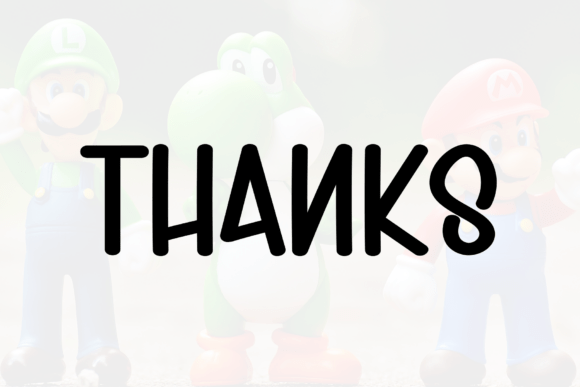
Introduction to Ladder Font
As you sit in front of your computer, staring at a blank canvas, the creative wheels start turning. You envision a beautiful, whimsical design that will transport your audience to a world of wonder. But, what’s missing is that perfect font to bring your vision to life. That’s where the Ladder Font comes in – a sweet and beautiful handwritten font that’s sure to add a cozy accent to any design project you wish to create.
With its unique, high-quality design, the Ladder Font is a valuable resource for designers looking to add a personal touch to their work. Whether you’re working on a free download or a paid design project, this font is sure to elevate your design and make it stand out from the crowd. Its transparent background and elegant characters make it a versatile design resource that can be used in a variety of creative projects.
Ladder Font
- High-quality font with a unique, creative design perfect for various projects.
- Features a clear, legible design with a range of font sizes and resolutions, including 300 DPI.
- Unique characteristics include a modern aesthetic and a versatile font family with multiple styles.
Honest Review: Ladder Font
As a designer, I’m always on the lookout for high-quality fonts that can elevate my creative projects. Recently, I stumbled upon the Ladder Font, and I’m excited to share my thoughts on this design resource.
What works well: ✨ The Ladder Font is a free download, which is a huge plus for designers on a budget. The font itself is a versatile sans-serif design that works well for headings and body text. I’ve used it in a few projects, and it’s consistently delivered a clean and modern look.
What’s more, the font comes with a transparent background, making it easy to combine with other design elements. The font’s simplicity also makes it a great choice for creating a cohesive brand identity.
- High-quality sans-serif design
- Great for headings and body text
⚠️ One limitation of the Ladder Font is its limited character set. While it’s suitable for most English language projects, it may not be the best choice for multilingual designs. Additionally, the font’s simplicity can sometimes make it feel a bit generic.
Overall, I’m impressed with the Ladder Font, and I think it’s a great addition to any designer’s toolkit. While it may have some limitations, its versatility and high-quality design make it a solid choice for creative projects.
To get the most out of the Ladder Font, experiment with different font sizes, colors, and styles. Use it in creative projects such as logos, branding materials, and social media graphics. The Ladder Font is particularly useful for designs that require a modern and minimalist look.